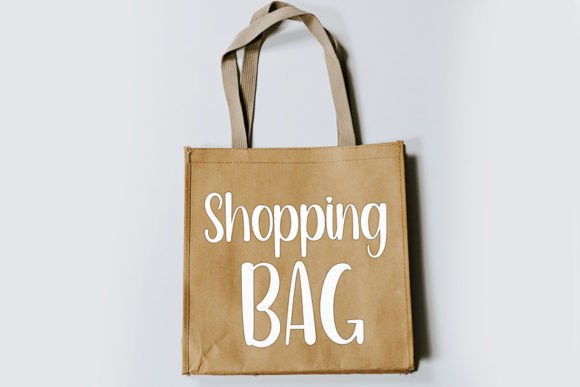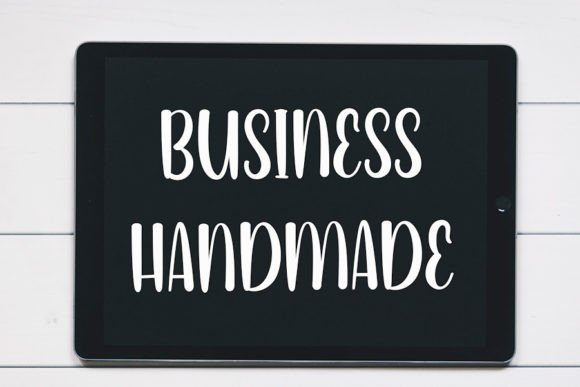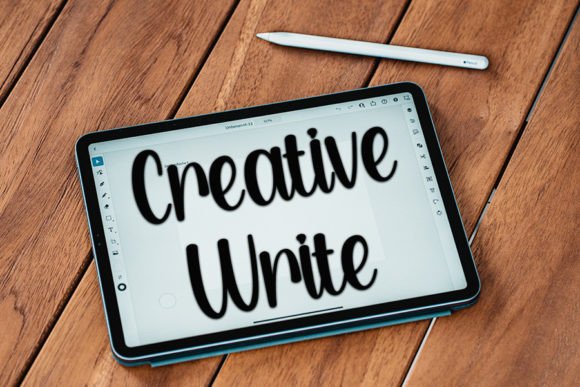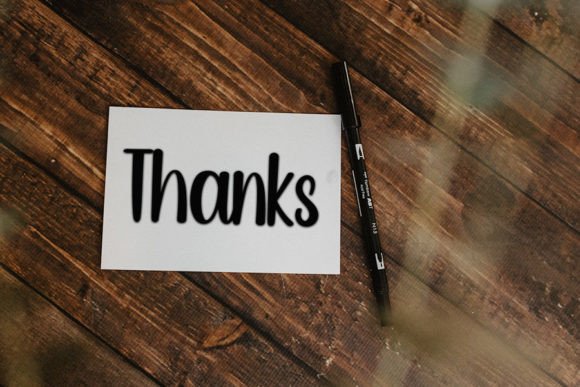
Discover the Charm of Farmhouse Font: Elevate Your Designs with Elegance
Are you on the hunt for a font that adds a touch of elegance and timeless charm to your projects? Look no further than the Farmhouse Font, a beautiful handwritten typeface that is sure to capture your heart. With its distinct and classic style, this font is perfect for designers and crafters seeking to create stunning designs that stand out from the crowd.
Farmhouse Font is a meticulously crafted handwritten font that exudes a sense of sophistication and refinement. Its elegant touch makes it an ideal choice for a wide range of projects, from wedding invitations and branding materials to packaging and digital content. This versatile font is designed to bring a touch of warmth and personality to your designs, making them truly unforgettable.
The Unique Characteristics of Farmhouse Font
So, what sets Farmhouse Font apart from other typefaces? Here are a few of its unique characteristics:
- Elegant and Refined: Farmhouse Font boasts an incredibly elegant and refined style, making it perfect for designs that require a touch of sophistication.
- Distinct and Timeless: This font features a distinct and timeless style that will never go out of fashion. Its classic appeal ensures that your designs will remain relevant for years to come.
- Handwritten with Love: Farmhouse Font is a handwritten typeface, carefully crafted to bring a sense of warmth and personality to your designs.
- Highly Versatile: This font is suitable for a wide range of projects, from digital content and social media graphics to print materials and branding.
Why Choose Farmhouse Font?
With so many fonts available, why should you choose Farmhouse Font for your projects? Here are just a few compelling reasons:
- Adds a Touch of Elegance: Farmhouse Font brings a level of sophistication and elegance to your designs, setting them apart from the competition.
- Easy to Read: This font features clear and flowing lines, making it easy to read and understand, even at small sizes.
- Perfect for Branding: Farmhouse Font is an excellent choice for branding materials, as it helps to create a consistent and recognizable visual identity.
- Great for Crafters: Whether you’re creating handmade cards, scrapbooking pages, or other craft projects, Farmhouse Font is a wonderful choice for adding a personal touch.
How to Use Farmhouse Font in Your Designs
Ready to fall in love with Farmhouse Font? Here are some ideas for incorporating it into your designs:
- Wedding Invitations: Use Farmhouse Font to create beautiful, elegant wedding invitations that set the tone for a special day.
- Branding Materials: Choose Farmhouse Font for your logo, business cards, and other branding materials to create a cohesive and sophisticated visual identity.
- Digital Content: Add a touch of elegance to your blog posts, social media graphics, and email newsletters with Farmhouse Font.
- Craft Projects: Use Farmhouse Font to add a personal touch to your handmade cards, scrapbooking pages, and other craft projects.
In conclusion, Farmhouse Font is a beautiful and elegant handwritten typeface that is sure to capture your heart. With its distinct and timeless style, this font is perfect for designers and crafters seeking to create stunning designs that stand out from the crowd. Whether you’re working on a wedding invitation, branding materials, or a craft project, Farmhouse Font is an excellent choice for adding a touch of sophistication and elegance. So why wait? Fall in love with Farmhouse Font today and elevate your designs to new heights!